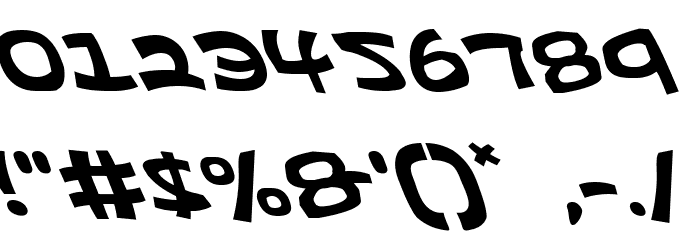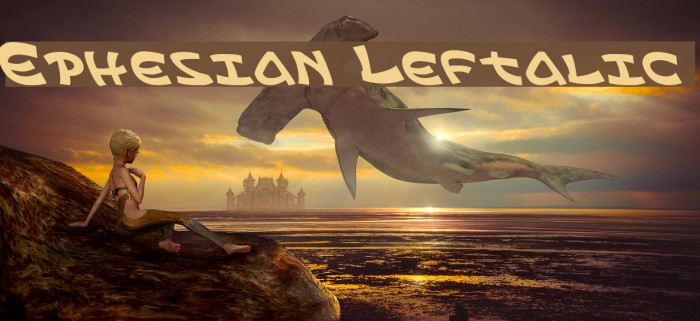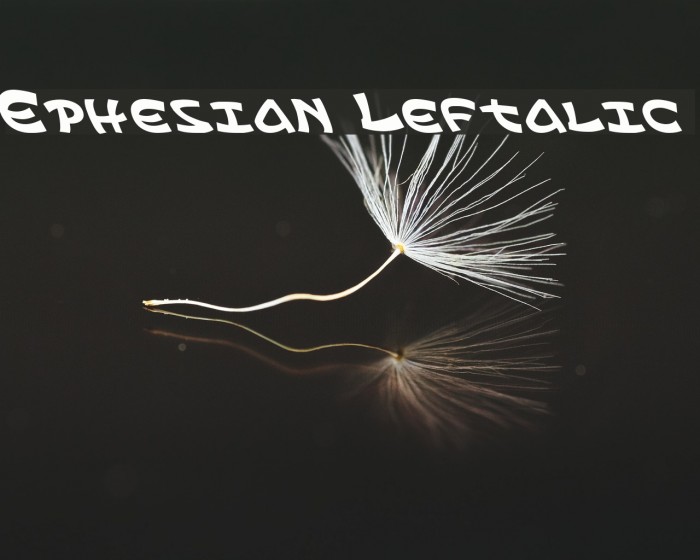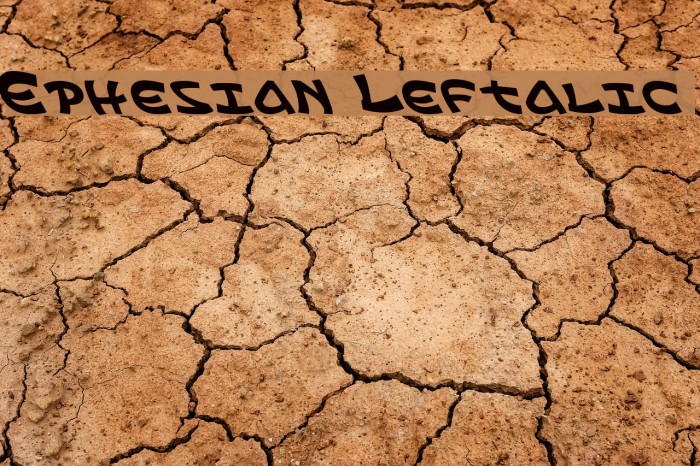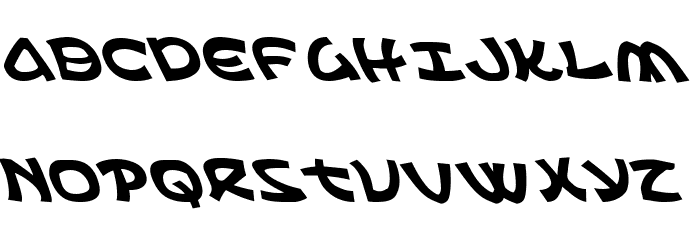
Ephesian Leftalic Font
Ephesian Leftalic Description
This font features a playful and dynamic style with a leftward slant, giving it a unique and whimsical appearance. The characters are bold and rounded, with exaggerated curves and a slightly irregular baseline that adds to its charm. The uppercase and lowercase letters maintain a consistent style, while the numbers and special characters are designed to complement the overall aesthetic. This font is ideal for projects that require a fun and informal touch, such as children's books, party invitations, or playful branding.
| Overall Style | Playful, Whimsical |
| Proposed Projects | Children's books, party invitations, playful branding, casual posters. |